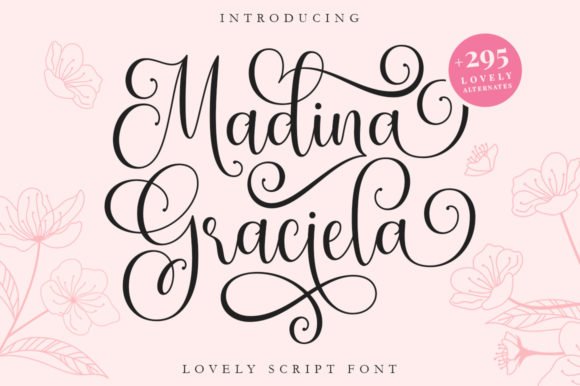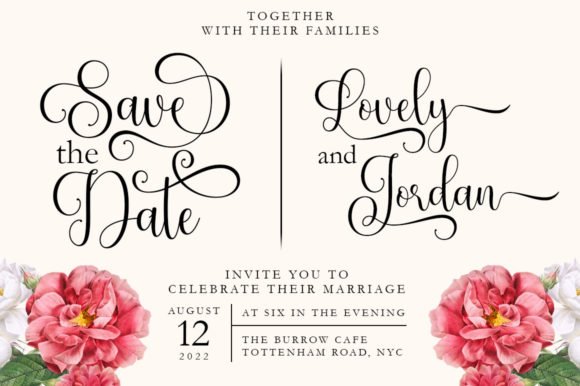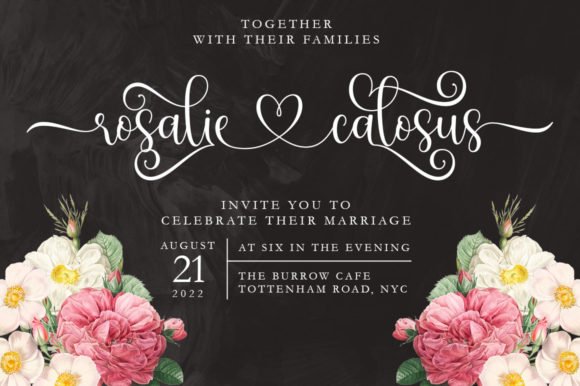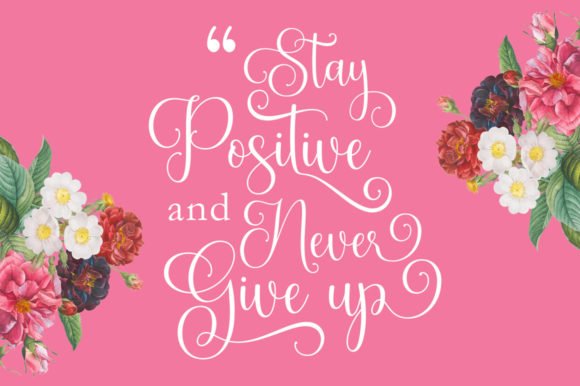
Madina Graciela Font
Madina Graciela Font is a modern romantic calligraphy font with smooth handwritten flows. Madina Graciela is perfect for logos, wedding stationery, cards, gift designs, photography, watermark, product packaging, and handwritten quotes. This font is PUA encoded, which means you can access all of the glyphs and swashes with ease!